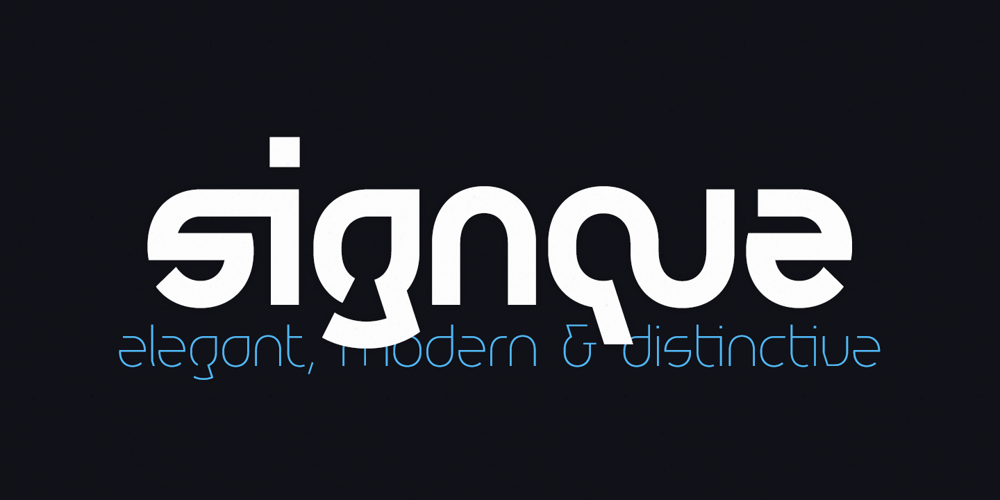
Signque Font Family was designed by Christian Lang and published by dayflash. Signque contains 9 styles and family package options. Signque is a contemporary sans serif typeface based on geometric shapes. The persistent tension between precise lines and accurate curves as well as the ongoing contrast between open and closed contours constitute the main characteristics of this fresh and modern font family. While unconventional letterforms make up signque’s distinctive appearance, extended widths, tall x-heights and clear shapes provide good legibility and nice readability. With its unique look and feel, signque will perform outstanding for headlines as well as for almost any other type of analogue and digital application.The signque font family comes in nine weights and includes unique letterforms as well as extensive ligatures, fractions, and figures.